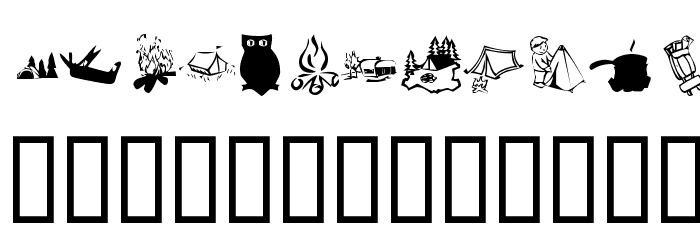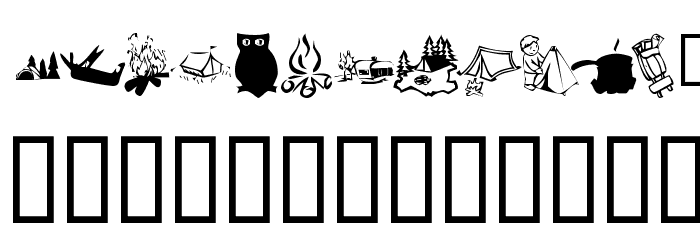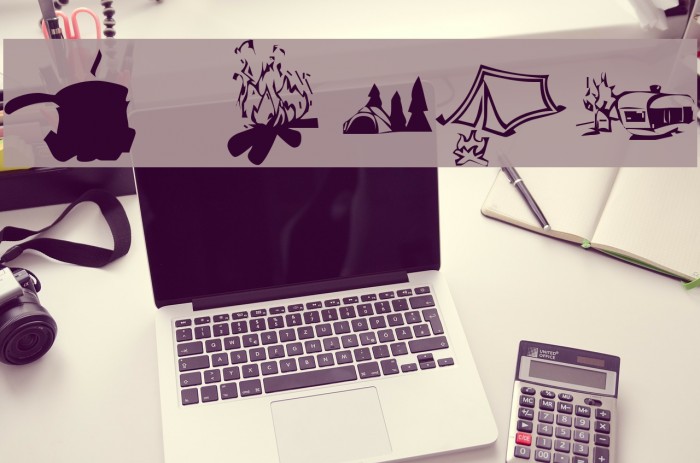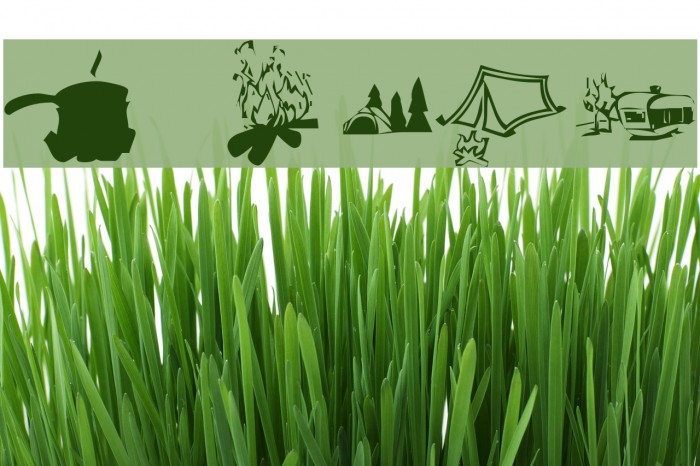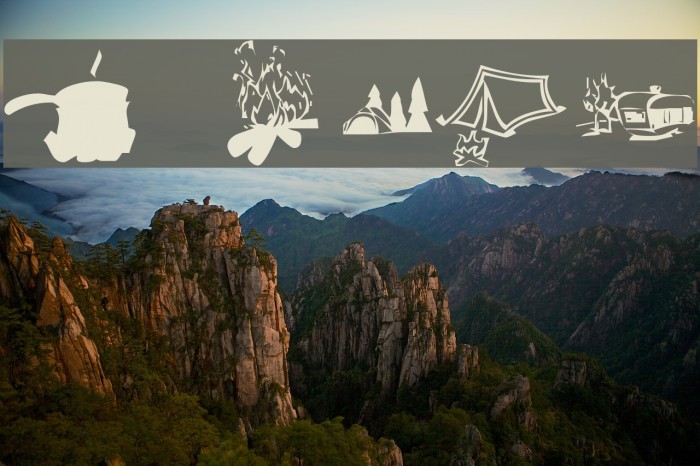
KR Camping Font
This is a decorative font featuring a series of camping-themed illustrations. Each character is represented by a unique camping-related icon, such as tents, campfires, owls, and other outdoor elements. The style is playful and thematic, making it ideal for projects that aim to capture the essence of outdoor adventures and camping experiences. The icons are bold and clear, providing a strong visual impact.
A decorative font with camping-themed icons.
- Proposed Projects: Ideal for outdoor event posters, camping trip invitations, nature-themed scrapbooks, and educational materials about wildlife and camping.
- Use Case: Logos, Posters, Invitations